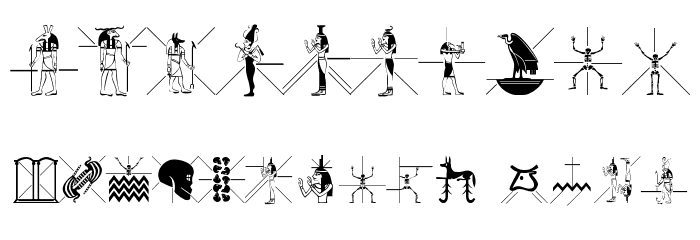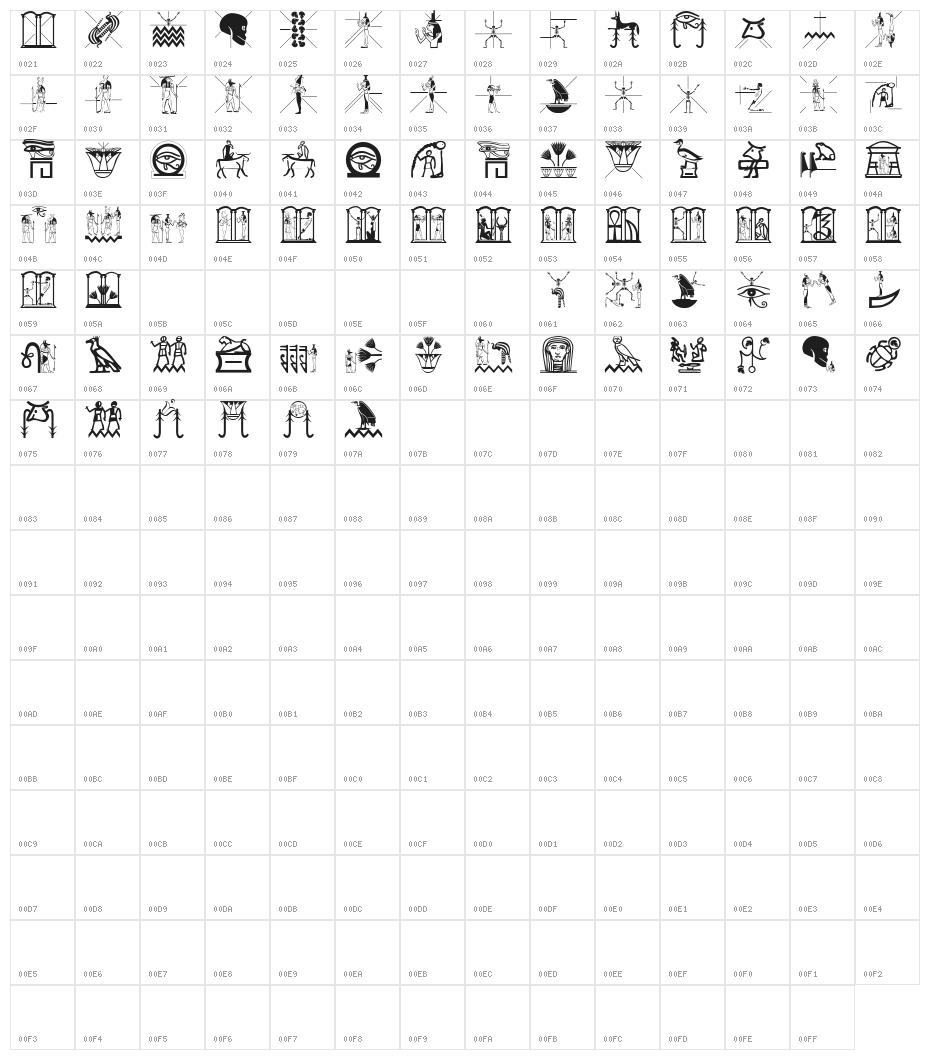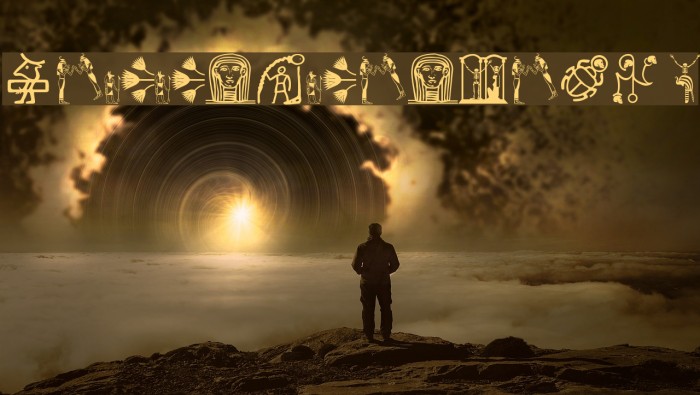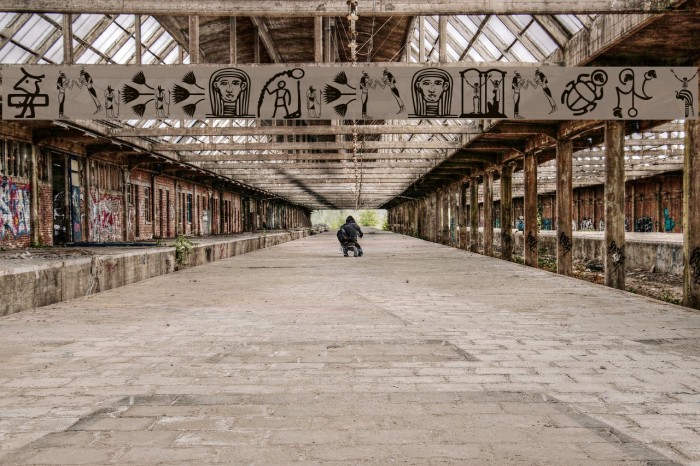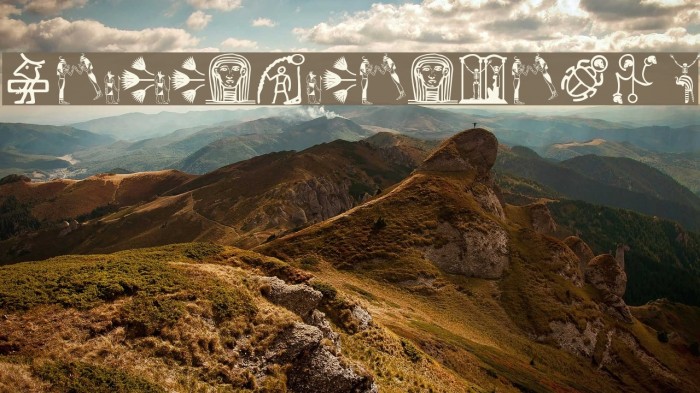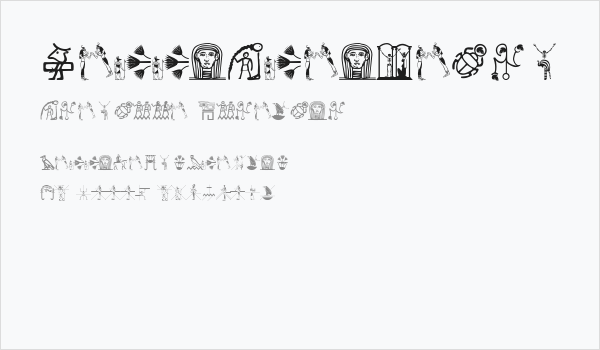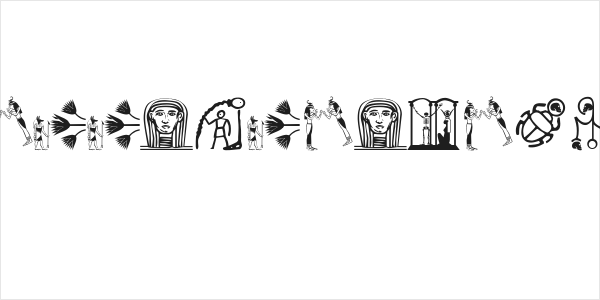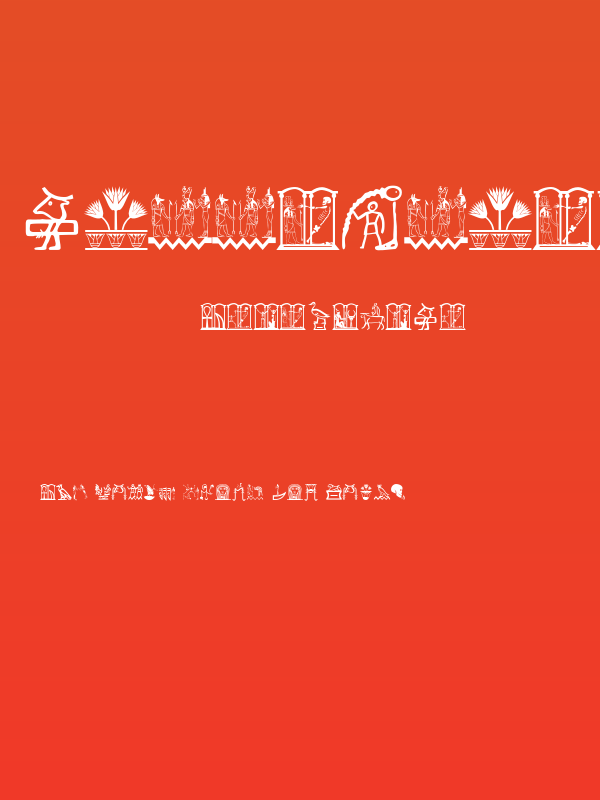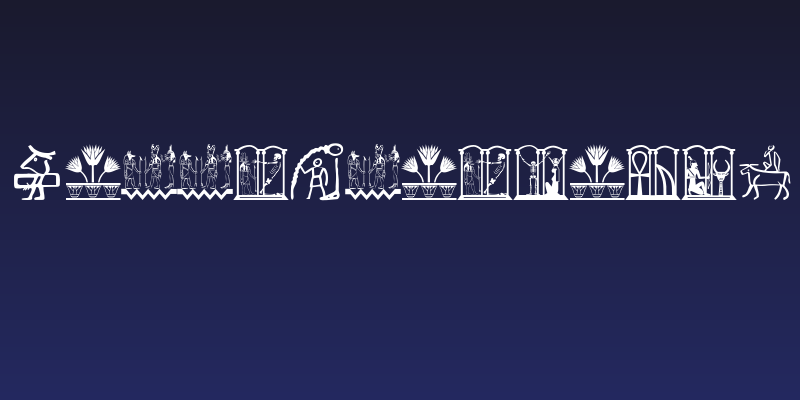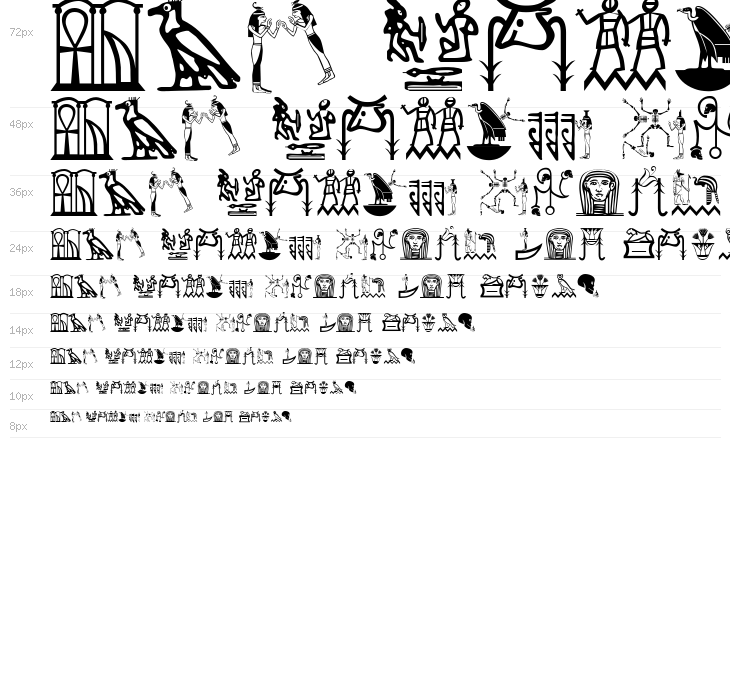
HelloCleoPetra Font
HelloCleoPetra Description
A highly decorative typeface inspired by ancient Egyptian hieroglyphs, featuring intricate pictorial symbols and detailed illustrations in place of traditional letterforms and numerals.
| Overall Style | Decorative, Ancient, Thematic |
| Use Case | Logos, Headlines, Themed graphics, Display text |
| Proposed Projects | Themed posters, museum exhibits, educational materials, historical displays, book covers, event invitations. |